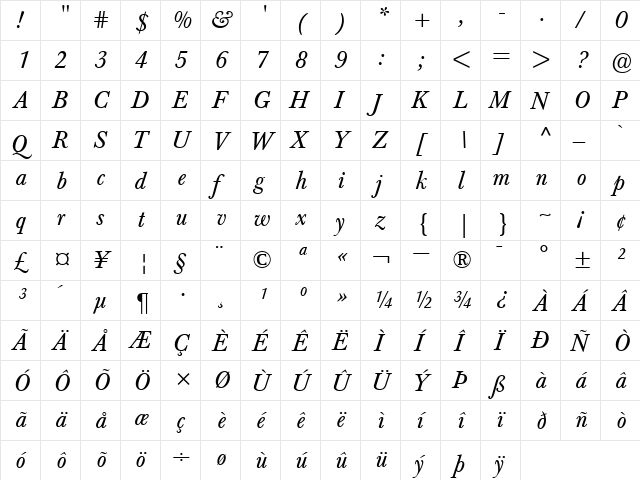
BertholdBaskerville RomanItalic
Design Context for BertholdBaskerville Typeface
BertholdBaskerville offers clean, dependable letterforms without strong stylistic allegiance, making it a practical choice for designers who need flexibility. The dynamic lean of this cut emphasises speed and emphasis in any layout.
Pro Tip: Try BertholdBaskerville for annotation and caption copy alongside an upright companion — the contrast in angle creates a dynamic but ordered typographic system.